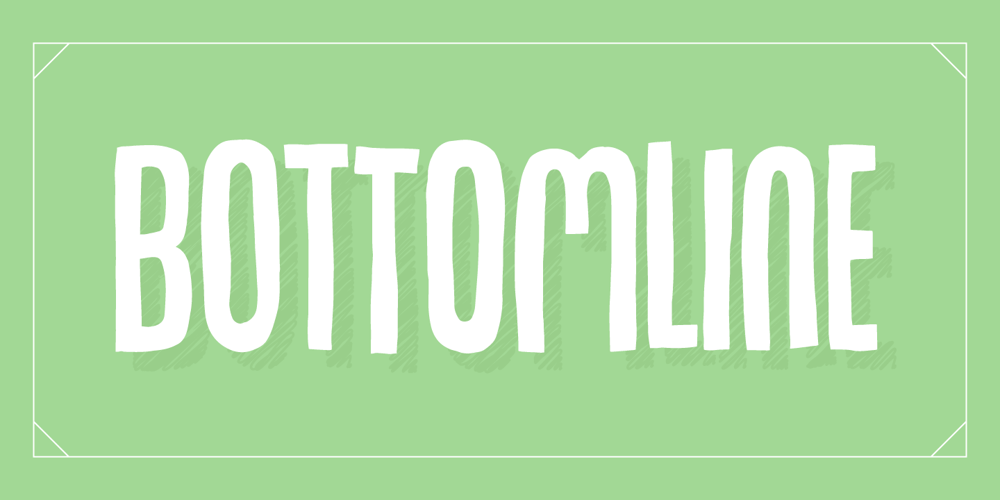
Bottomline
Bottomline font
Bottomline Font Family was designed by Jakob Fischer and published by PizzaDude.dk. Bottomline contains 2 styles and family package options. Bottomline has 6 different versions of each letter and a trunkful of international letters – and that goes for both Regular and Scribbled versions. This leaves your text with great diversity and a somewhat funky bounce. On top of all this, you get loads of extra international accented letters!